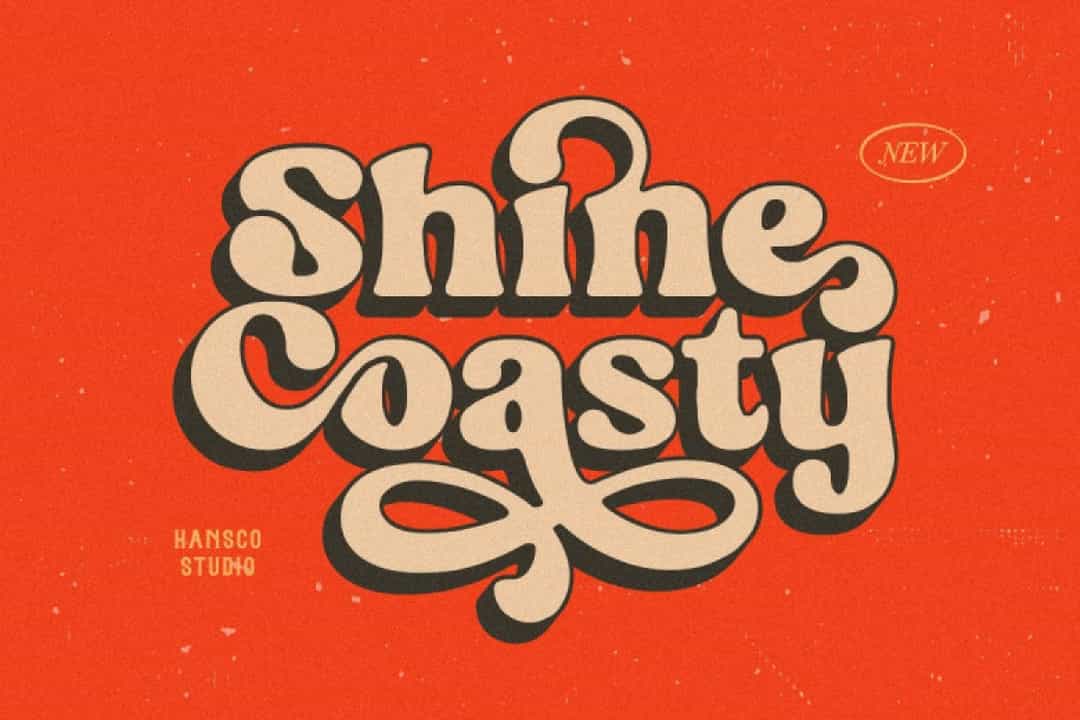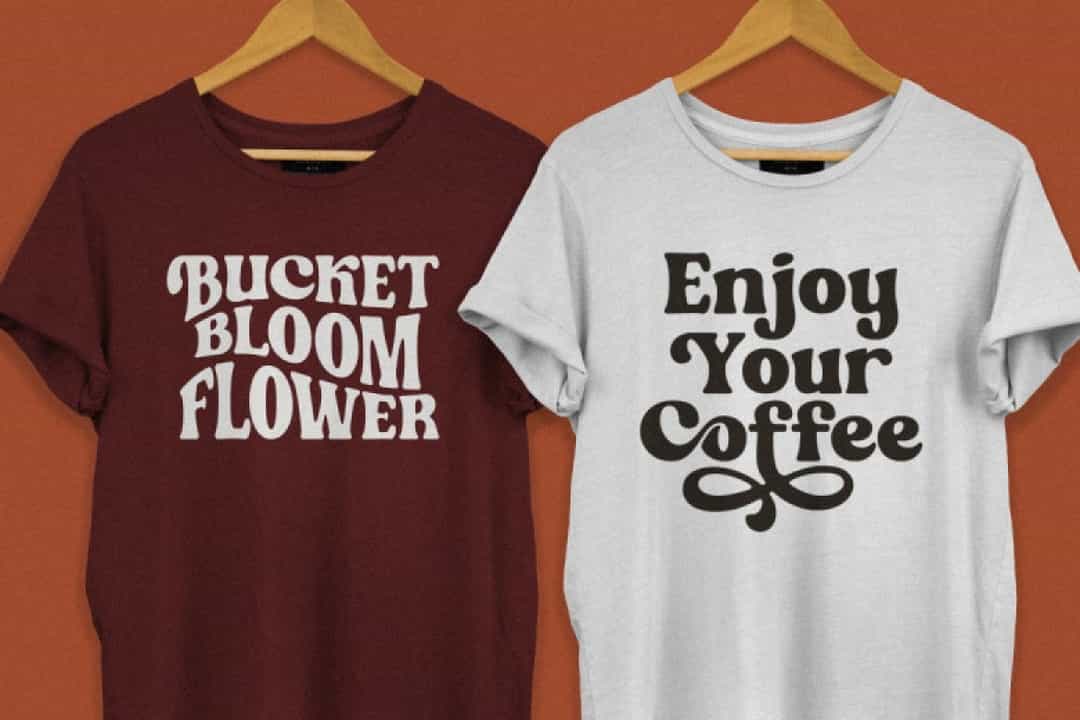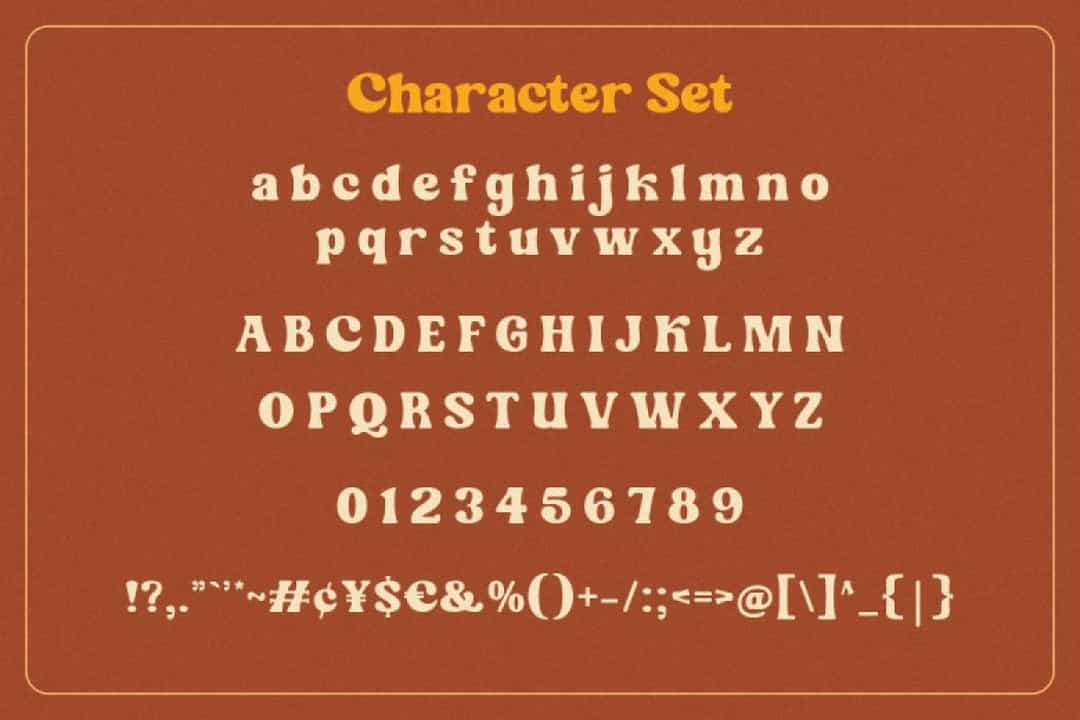
Shine Coasty font is an eye-catching vintage serif bold font designed for display, featuring alternate characters with swashed on characters for that retro vibe. Expertly created to bring all your creative ideas to the next level!